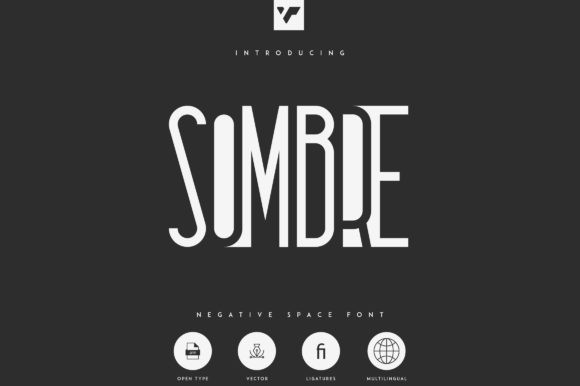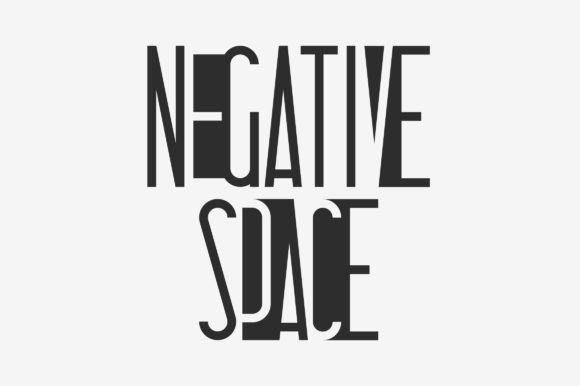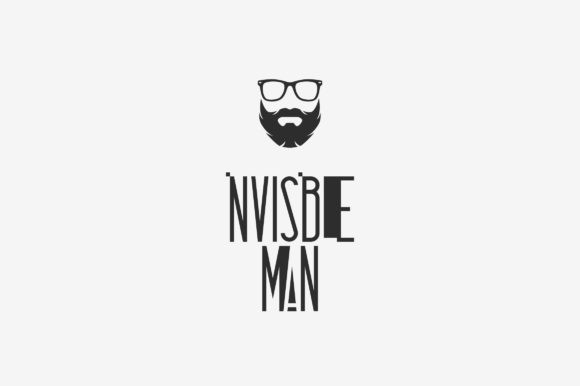
Sombre Font
Sombre is an incredibly unique and casual display font. Its modern feel makes this font incredibly versatile, fitting a wide range of contexts. Add it to your creative ideas and notice how it makes them stand out!